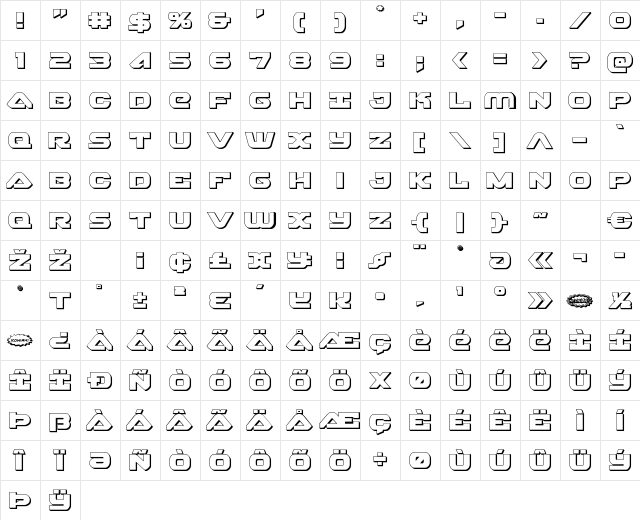
Skyhawk 3D Regular
Skyhawk 3D Family
Design Context for Skyhawk 3D
Skyhawk 3D is a composed and adaptable typeface that performs quietly and consistently across a wide range of design contexts.